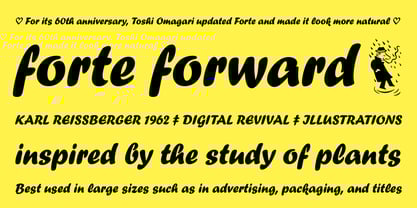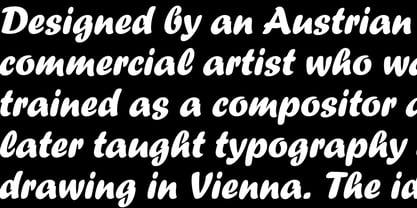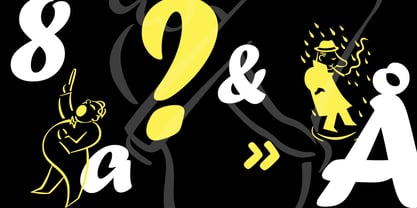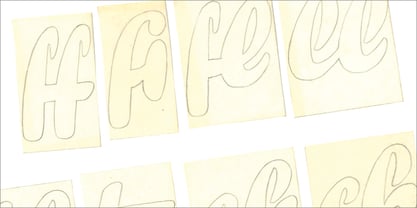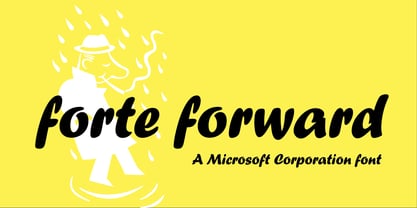
Forte Forward
by Microsoft Corporation
The Forte Forward Font Family was designed by Carl Reissberger, Toshi Omagari and published by Microsoft Corporation. Forte Forward contains 1 styles. More about this family
Added to Office in December 2022 Forte Forward is a revival of Forte, a bold and casual cursive typeface that was originally designed by Karl Reißberger and released by Monotype in 1962. Because of the technology of the era in which it was made, each letter of Forte had to fit in a vertical rectangle and could not allow the neighboring letters inside the boundaries. This resulted in the tall letters like ‘f‘ having to slant back and squeeze the head, for example, which had remained unchanged in the digital version. To celebrate its 60th anniversary, Toshi Omagari gave the typeface a facelift and made it look more natural. Much like the original, Forte Forward has a good balance of boldness that draws attention and a friendliness that comes from the casual letterforms but without looking unprofessional. It is therefore best used in large sizes such as in advertising, packaging, and titles.
Designers: Carl Reissberger, Toshi Omagari
Foundry: Microsoft Corporation